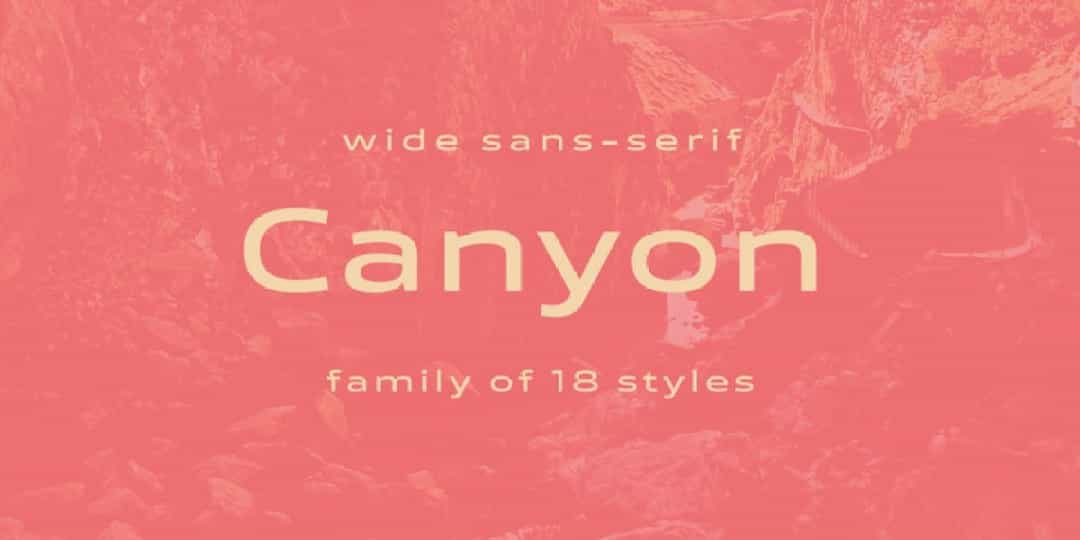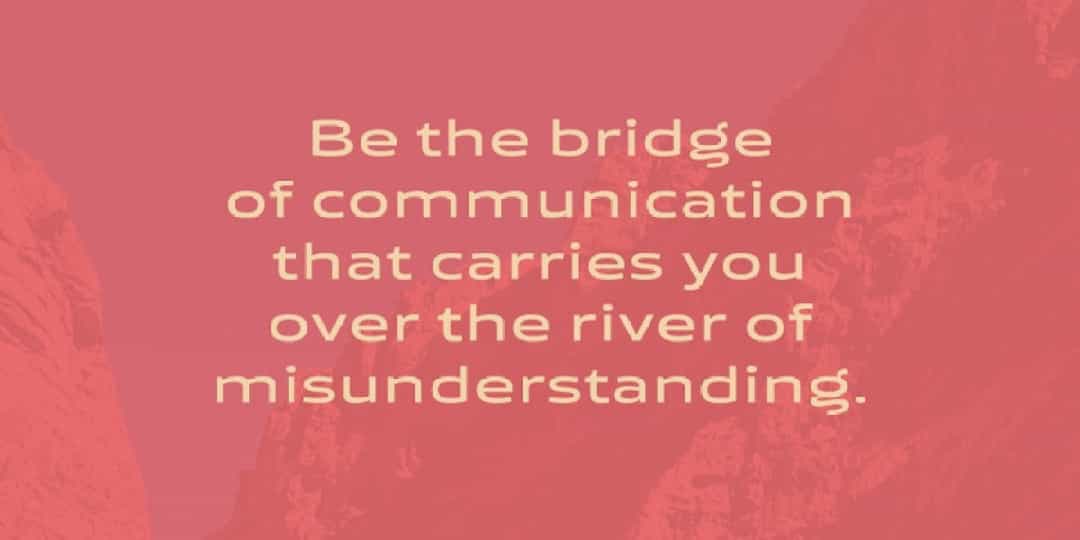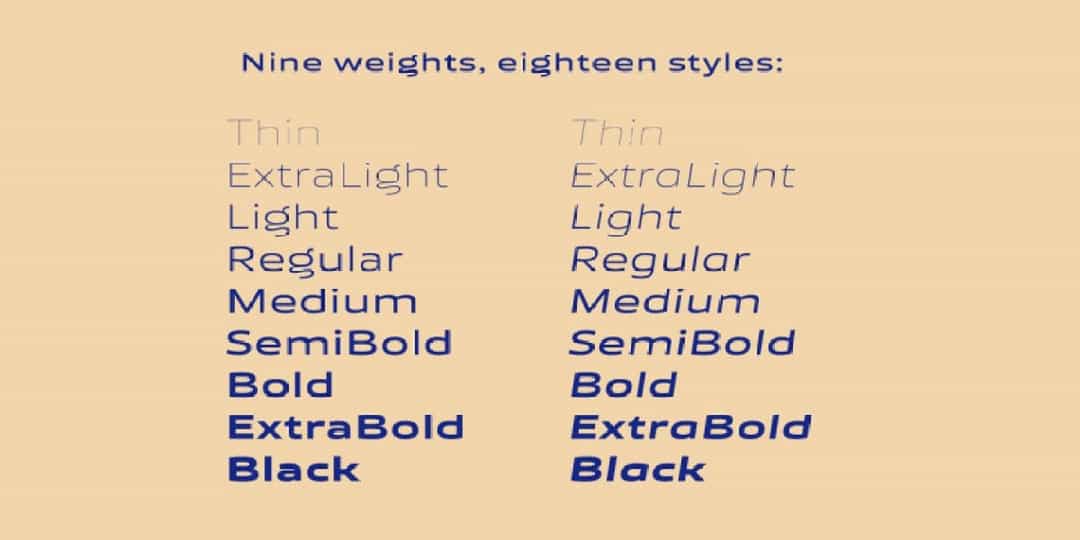
Canyon Font Family is a minimal sans serif typeface with its round lines makes Canyon ideal for presentations, packaging and any creative projects such as headlines, logos letters posters branding quotes titles magazine headings web layouts advertisements invitations packaging design books and any creative idea imaginable.